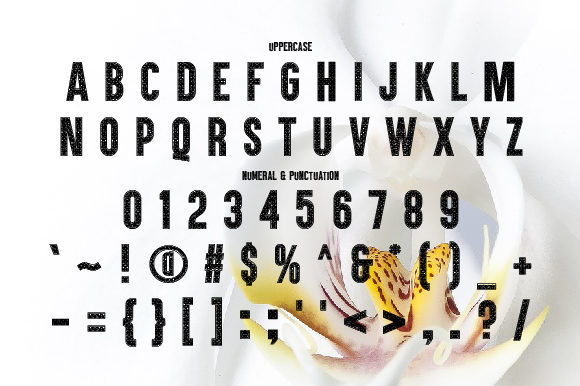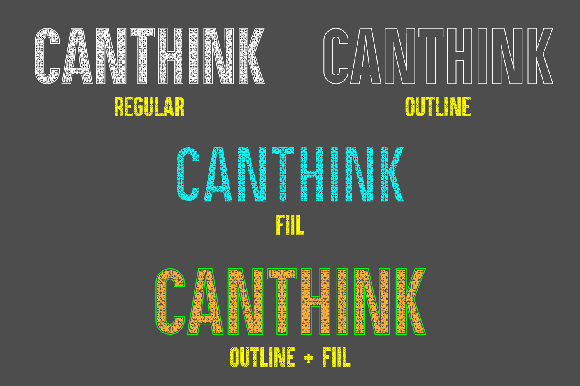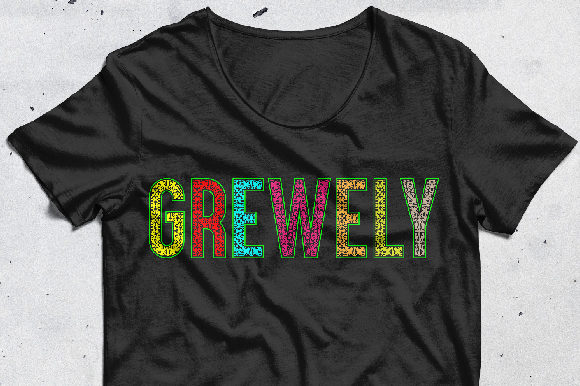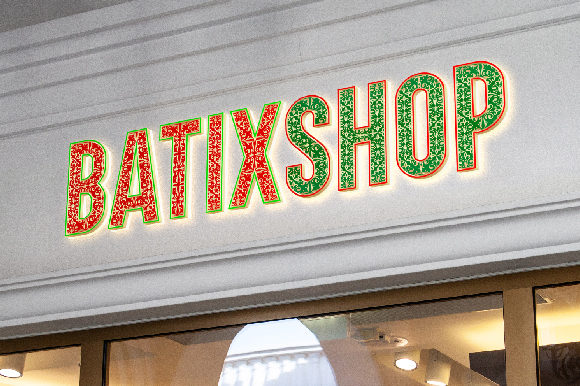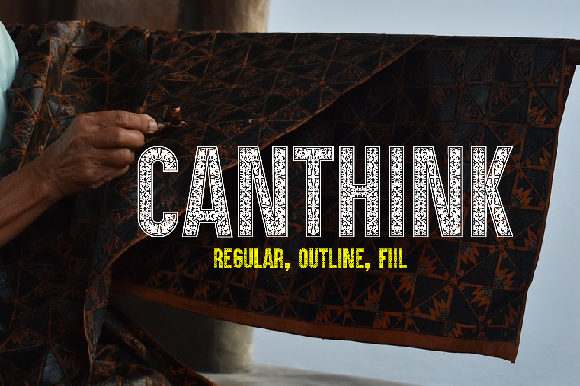
Discover the Beauty of Canthink Font: A Decorative Typeface Inspired by Traditional Indonesian Fabrics
Are you a designer or crafter looking for a unique and eye-catching font to add to your creative projects? Look no further than the Canthink Font, a decorative typeface that draws inspiration from the vibrant and intricate patterns of traditional Indonesian fabrics. This stunning font is a perfect blend of modern style and cultural heritage, making it an ideal choice for any design project that requires a touch of elegance and sophistication.
The Inspiration Behind Canthink Font
The Canthink Font is a celebration of the rich cultural heritage of Indonesia, where traditional fabrics have been a staple of everyday life for centuries. Indonesian fabrics, such as batik, are renowned for their intricate patterns, vibrant colors, and unique textures. The Canthink Font takes these traditional designs and turns them into a modern, decorative typeface that is perfect for a wide range of design applications.
What Makes Canthink Font So Special?
The Canthink Font is more than just a font – it’s a design experience. With its unique blend of batik patterns and decorative elements, this font is sure to add a touch of exotic elegance to any design project. Here are just a few features that make the Canthink Font so special:
- Mixture of Batik Patterns: The Canthink Font features a unique mixture of various batik patterns, carefully crafted to create a truly one-of-a-kind design experience.
- Regular, Outline, and Fill Versions: The Canthink Font comes in three different versions: regular, outline, and fill. This allows designers to experiment with different styles and combinations to achieve the perfect look.
- Decorative Themed Designs: The Canthink Font is specifically designed for decorative themed designs, making it perfect for projects that require a touch of elegance and sophistication.
How to Use Canthink Font to Maximize Your Design Potential
To get the most out of the Canthink Font, designers can experiment with combining the outline and fill versions to create unique and eye-catching designs. Here are a few tips to help you maximize your design potential:
- Combine Outline and Fill: Try combining the outline and fill versions of the Canthink Font to create a stunning, layered effect.
- Experiment with Colors: The Canthink Font looks great in a wide range of colors, so don’t be afraid to experiment and find the perfect hue for your design.
- Use in Combination with Other Fonts: The Canthink Font can be used in combination with other fonts to create a unique and visually appealing design.
The Canthink Font is perfect for designers and crafters who are looking for a unique and eye-catching font to add to their creative projects. Whether you’re working on a graphic design project, crafting a handmade card, or creating a beautiful piece of art, the Canthink Font is sure to inspire and delight.
In conclusion, the Canthink Font is a stunning decorative typeface that is inspired by the vibrant and intricate patterns of traditional Indonesian fabrics. With its unique blend of batik patterns, regular, outline, and fill versions, and decorative themed designs, this font is perfect for designers and crafters who are looking for a touch of elegance and sophistication in their creative projects. So why wait? Download the Canthink Font today and discover a world of design possibilities!